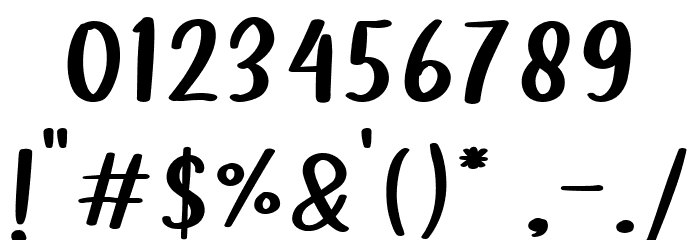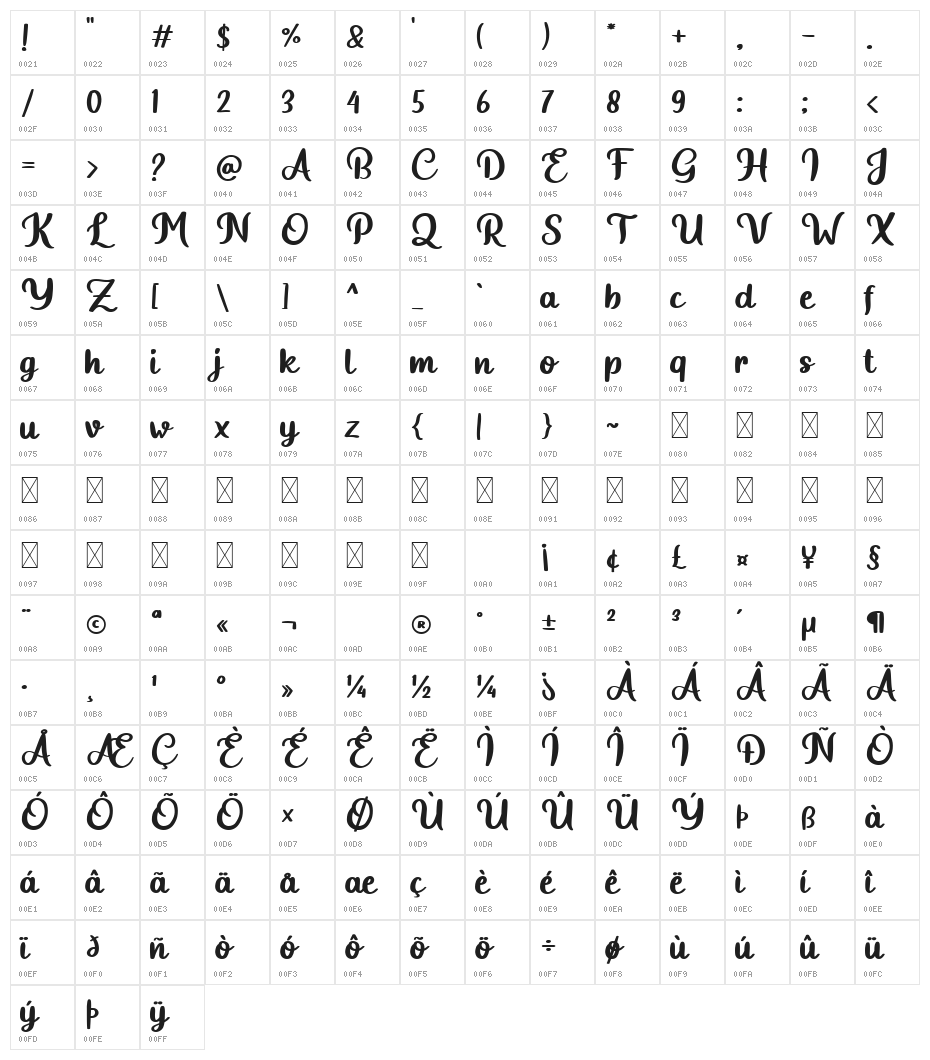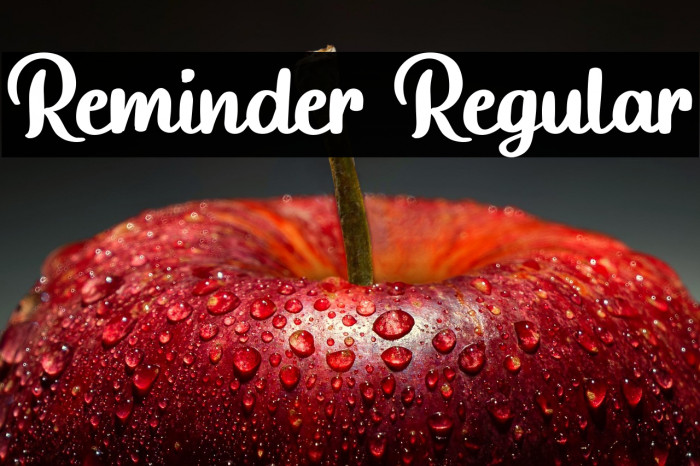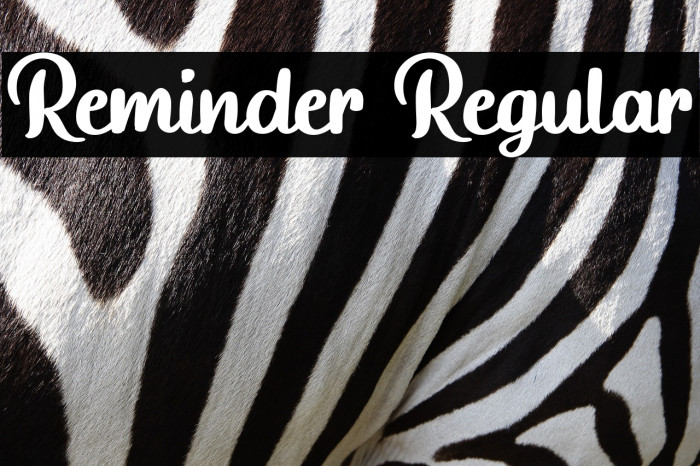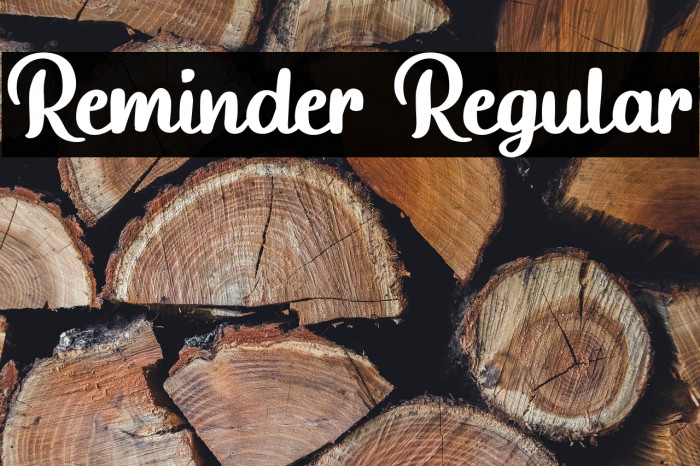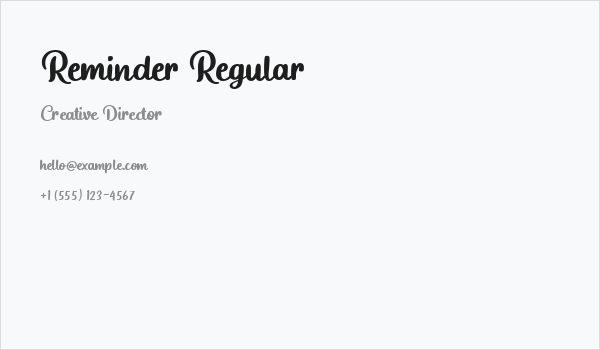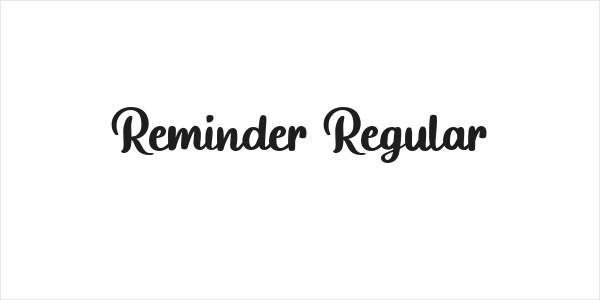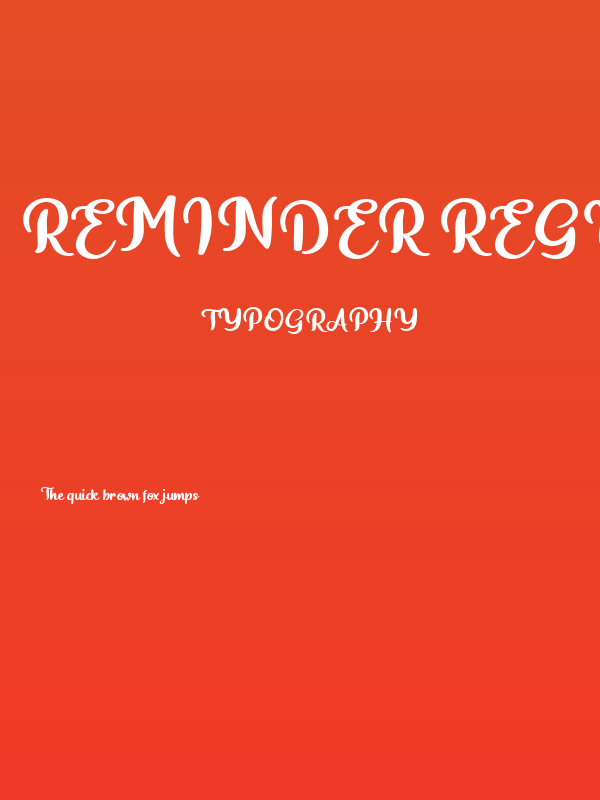
Reminder Regular Font
Reminder Regular Description
This font features a playful and flowing script style, characterized by its smooth, rounded curves and consistent stroke weight. The uppercase letters exhibit a whimsical flair with slightly exaggerated loops and swashes, while the lowercase letters maintain a cohesive and harmonious appearance. The numerals are bold and easily legible, complementing the overall aesthetic. Special characters are thoughtfully designed to match the font's lively and engaging style, making it suitable for creative and expressive projects.